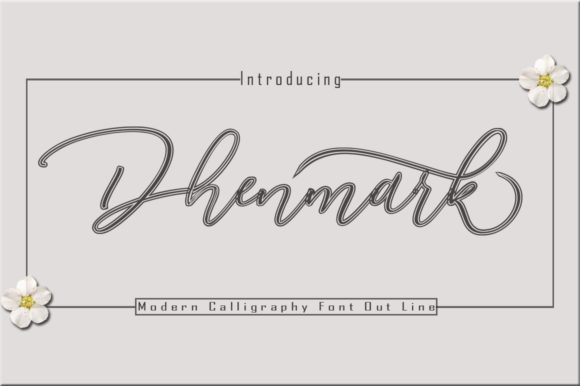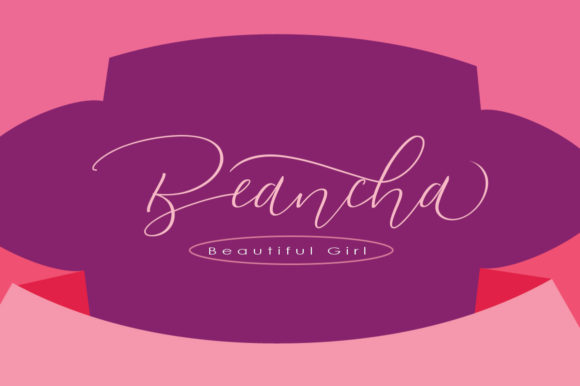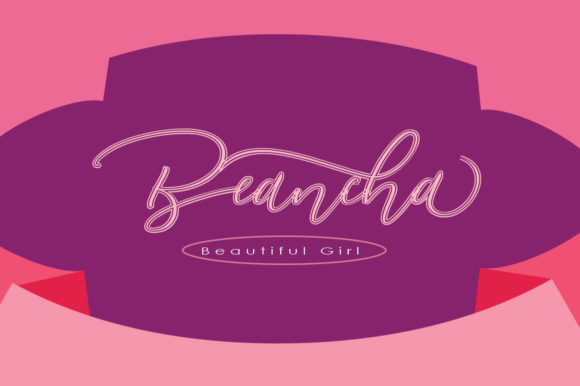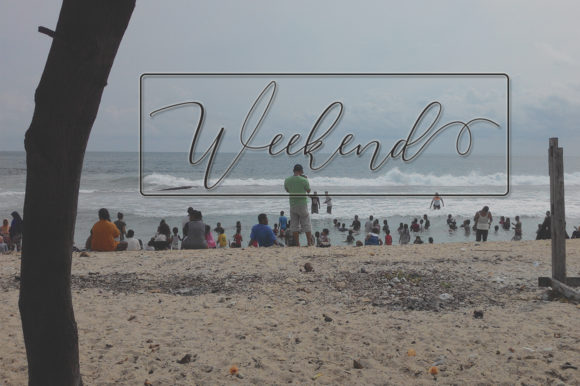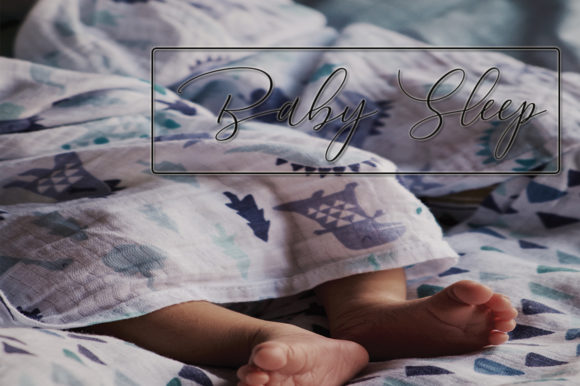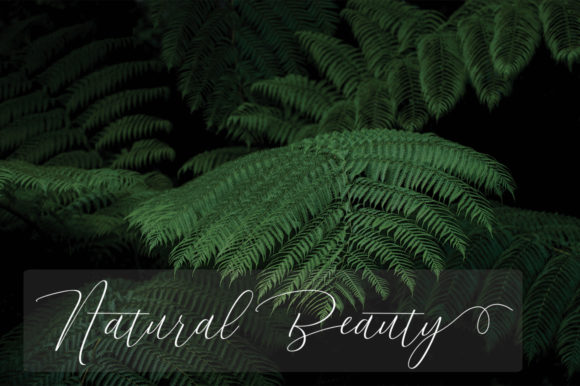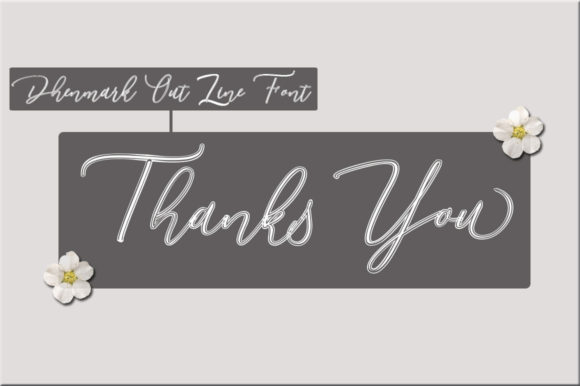
Dhenmark Duo Font
About Dhenmark Duo Font
Effortlessly cool and elegant, Dhenmark is an authentic font duo that will add a timeless touch to any design project.